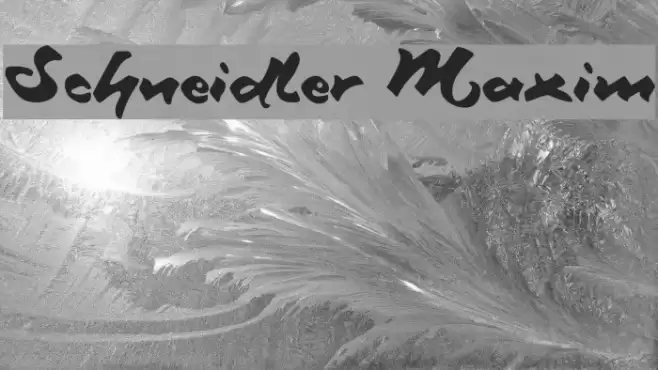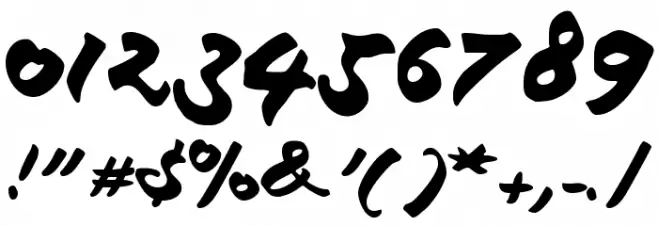
Schneidler Maxim Font
Schneidler Maxim Description
This font features a bold and expressive script style, characterized by its fluid and dynamic strokes. The letters are interconnected, creating a sense of movement and flow. The uppercase letters have a dramatic flair with exaggerated curves, while the lowercase letters maintain a consistent rhythm. The numerals are bold and distinct, matching the overall style of the alphabet. Special characters are creatively integrated, adding to the font's versatility. This font is ideal for projects that require a personal and artistic touch, such as invitations, branding, and creative designs.
A bold, expressive script font with fluid, interconnected strokes from Uncategorized fonts.
- Proposed Projects: Ideal for invitations, branding, creative designs, and artistic projects.
- Character Spacing: Tight
- Use Case: Logos, Headlines, Artistic projects